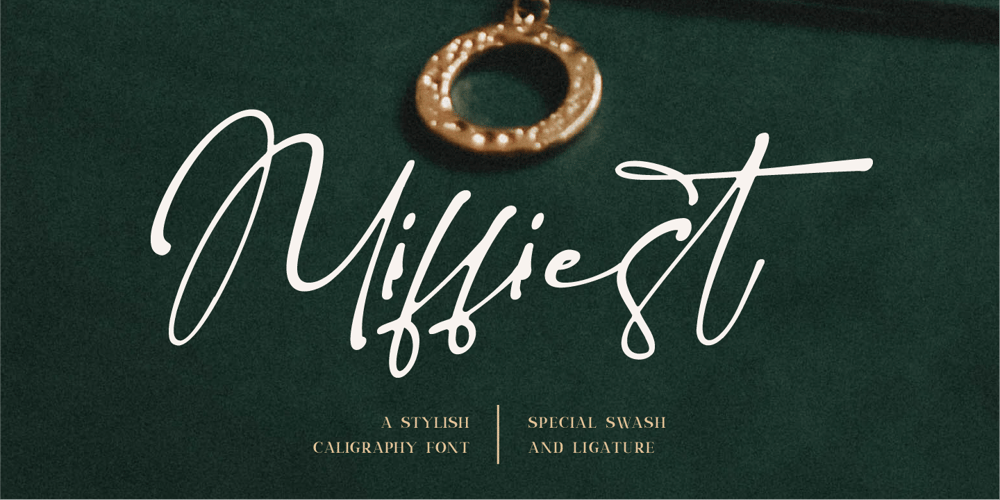
Miffiest Font Family was designed by Farida Kurniawan and published by Fridaytype. Miffiest contains 1 styles and family package options. Miffiest – Stylish Calligraphy FontsMiffiest is a stylish calligraphy font. Inspired by sketches, there are several characters that have unique ligatures and give a different impression from other fonts. Miffiest comes with multilingual support as well.Files Included:- Uppercase & Lowercase- Numbers & punctuation- Multilingual- Ligature- AlternativeDrop any message if you have any questions, Thanks!Fridaytype